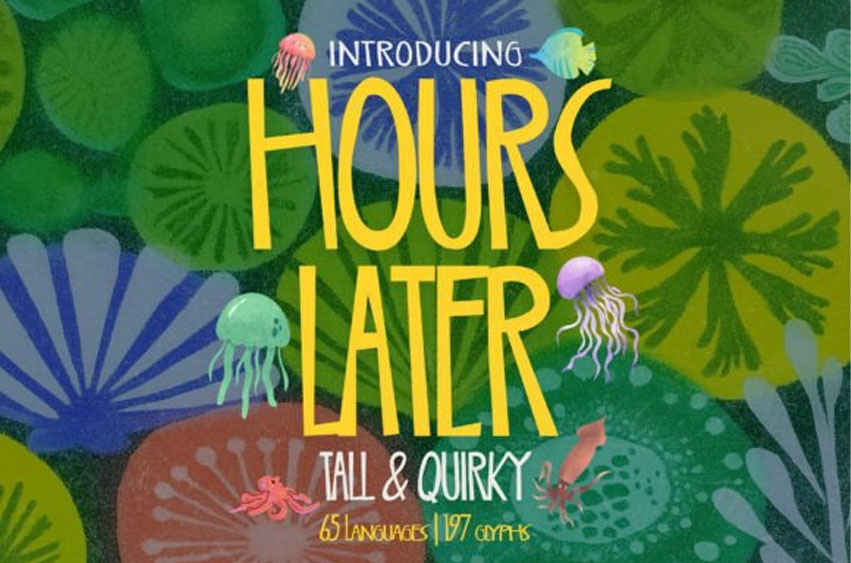
Hours Laters Font is a tall, playful, and quirky display font designed to bring joy, personality, and fun to your designs.
With its friendly shapes and cheerful rhythm, this typeface is perfect for kids, toddlers, babies, and playful brands that want to feel warm and inviting.
Ideal for birthday parties, events, cartoons, children’s books, posters, packaging, classroom materials, and social media graphics, Hours Later adds instant charm without sacrificing readability. Its tall proportions and whimsical letterforms make every word feel animated and full of life.
Whether you’re designing for a nursery, kids’ brand, party invitation, or cartoon-style project, Hours Later delivers a playful tone that feels happy, imaginative, and approachable.
✦ Features
• Tall, playful display font
• Cute, quirky, and kid-friendly letterforms
• Perfect for kids, toddlers & baby projects
• Ideal for birthdays, events, cartoons & branding
• Works beautifully in print and digital designs